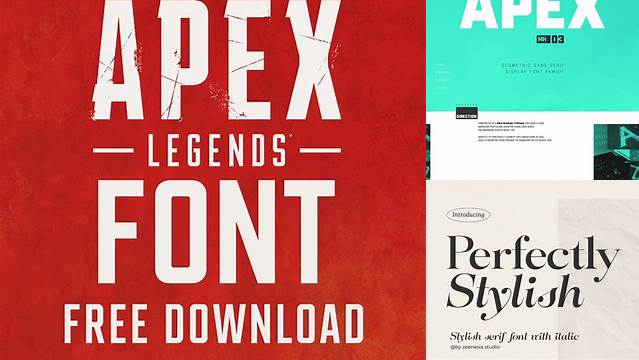
Download Apex Fonts: A Guide To Free & Stylish Typography
Hey guys! Are you on the hunt for some fresh, stylish fonts to spice up your designs? If so, you're in the right place! We're diving deep into the world of Apex Fonts, specifically focusing on how you can get your hands on them for free. I know, free is the best word ever, right? Whether you're a seasoned designer, a budding enthusiast, or just someone who loves a good-looking font, this guide is your go-to resource. We'll cover everything from where to download these awesome fonts to how to use them effectively in your projects. So, buckle up, and let's explore the amazing world of Apex Fonts and how to snag them without spending a dime.
H2: Unveiling the Allure of Apex Font Family
Let's kick things off by talking about what makes the Apex Font Family so special. What is it that makes this font so popular and sought after? It's a modern typeface, designed with both functionality and aesthetics in mind. The design of the font itself is clean and versatile. This means it can be used in a variety of projects, from sleek website headers to eye-catching print materials. It often gets attention for its legibility and the overall professional feel it brings to any design. Many designers and creatives are drawn to the Apex Font Family because it’s not just about the letters themselves; it's about the experience it creates. It offers a balance of both elegance and readability. The typefaces in the Apex Font Family often have a unique personality, allowing them to stand out from the crowd. They are a popular choice for branding projects because of how well it communicates a brand's identity. This is because it's often associated with brands that want to project a sense of trustworthiness, sophistication, and modernity. The fonts are often designed with meticulous attention to detail. The curves, lines, and spacing of the characters are carefully considered, resulting in a harmonious visual experience. The design and structure are really thought out. If you're a designer, you'll appreciate the versatility of the Apex Font Family. You can use it in a wide range of projects, from web design to print materials. They are also great for both headlines and body text. This versatility is a key reason why Apex Fonts are a favorite among designers.